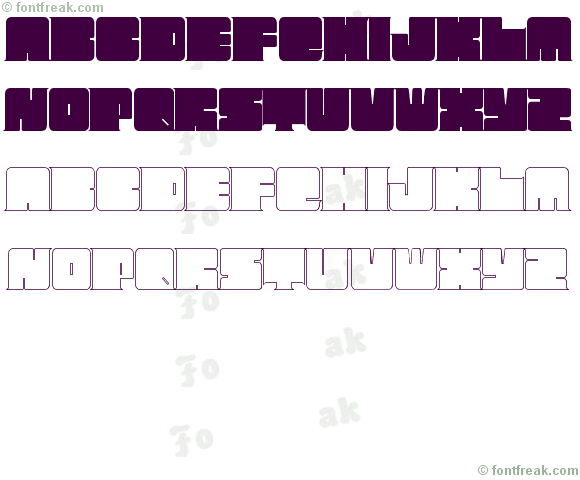
Exus
About Exus Pilot
Exus Pilot, designed by Mauro Hernandez in 2009, is a striking sans-serif typeface that embodies a modern aesthetic while retaining a unique flair. With its clean lines and balanced proportions, this font presents an engaging combination of simplicity and sophistication. The stroke weight is consistent, providing a sense of stability, while the moderate contrast between thick and thin strokes adds visual interest without overwhelming the reader. The letter spacing is well-considered, allowing for easy readability across various applications.
This versatile typeface excels in a range of contexts, making it an ideal choice for graphic designers and content creators alike. Exus Pilot is particularly well-suited for branding projects, such as logos and business cards, where a contemporary yet approachable look is desired. It also shines in digital applications, including website headers and social media graphics, where its clarity and modernity can attract attention. Additionally, Exus Pilot can elevate printed materials, such as restaurant menus and event flyers, giving them a polished and professional appearance. Wedding invitations benefit from its elegance, creating a stylish yet understated invitation that guests will appreciate.
The target audience for the Exus Pilot font includes small business owners looking to establish a strong visual identity, graphic designers seeking a fresh typeface for their projects, and content creators aiming to enhance the aesthetic appeal of their work. With its freeware license, this font is accessible to anyone looking to incorporate a modern touch into their designs.
What truly sets the Exus Pilot font apart is its seamless blend of contemporary style and practicality. This font stands out not only for its aesthetic qualities but also for its versatility, making it a valuable addition to any designer's toolkit. For those interested in elevating their projects, the Exus Pilot font free download is a fantastic opportunity to access this remarkable typeface.